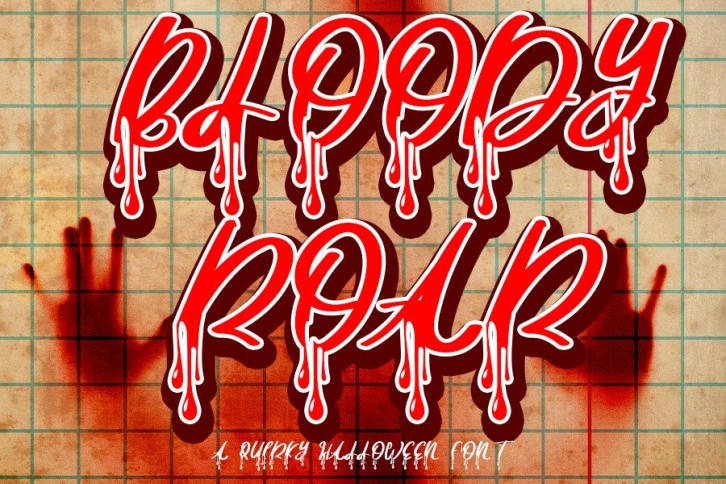
Bloody Roar is an incredibly spooky and fun decorative font. Add it confidently to your favorite Halloween creations, and let yourself be amazed by the outcome generated!